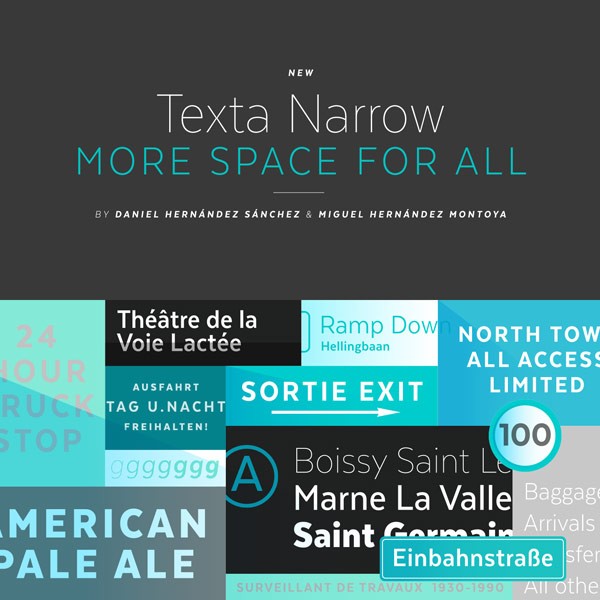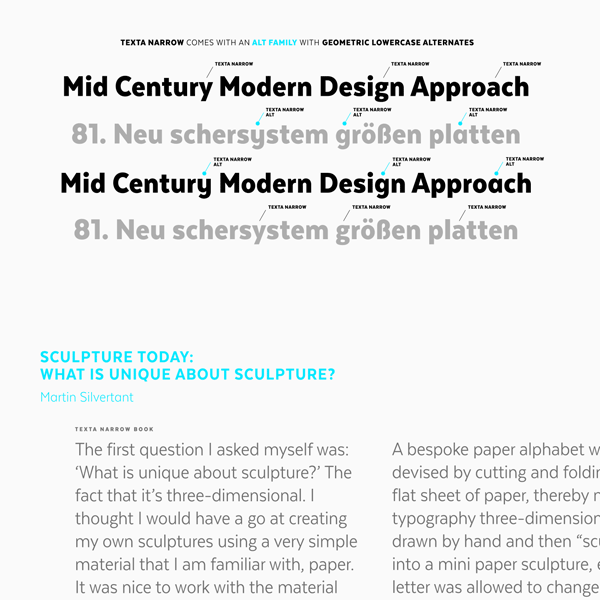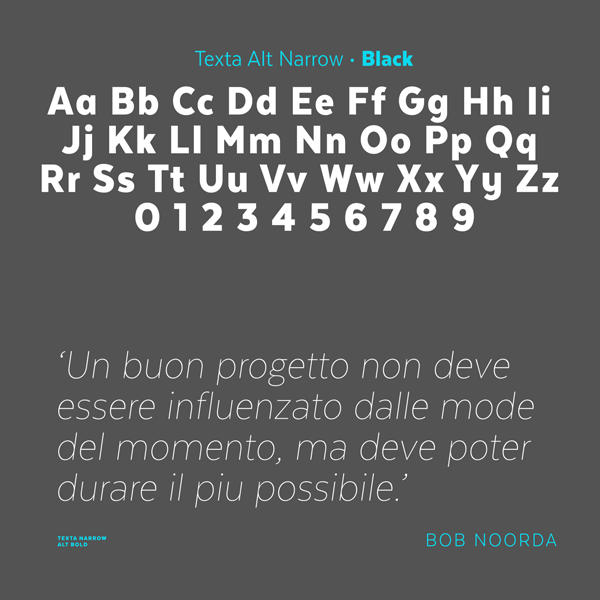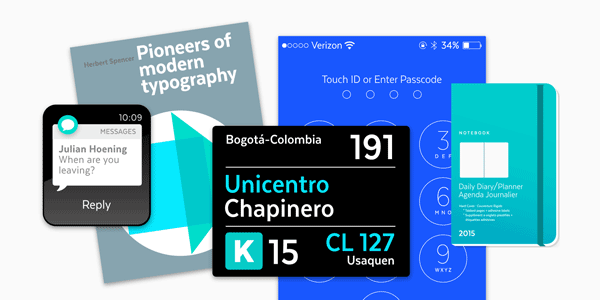
The Texta Narrow font from Latinotype, a sans serif family for any kind of texts.
Texta Narrow is our today’s recommended font. Daniel Hernández and Miguel Hernández of foundry Latinotype have developed this sans serif family in 2014 – 2015. The geometric sans serif typeface of the Texta Narrow font draws inspiration by the Gothic alphabet made by sign painters or by the models from famous type designers such as Edward Johnston to Adrian Frutiger. The result is a contemporary, rational, transparent, and very useful sans serif typeface, which is well suited for any kind of texts and typographic applications.
A great feature of this family is an alternative version that replaces lowercases such as “a, g, y” with geometric letters to get even more diversity.